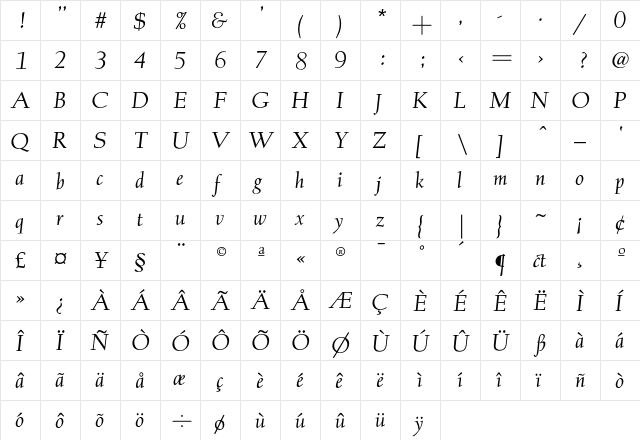
AlbertanL-Italic Regular
Design Context for AlbertanL-Italic Typeface
AlbertanL-Italic takes a measured approach to typography — its balanced proportions and neutral character make it a reliable workhorse for both digital and print work. Its italic angle brings a sense of urgency and motion to the letterforms.